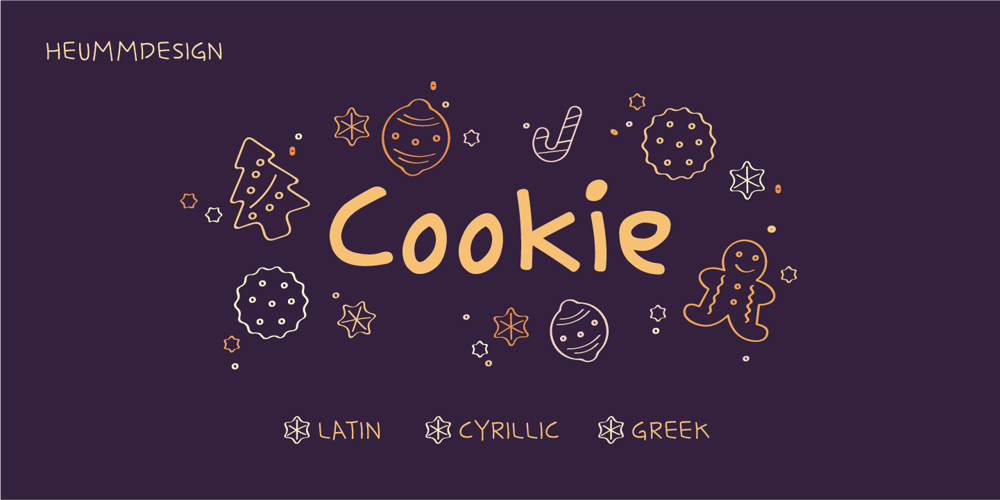
HU Cookie
HU Cookie font
HU Cookie Font Family was designed by Haerin Lee, ByoungHeon Park, Rumi Kim and published by Heummdesign. HU Cookie contains 2 styles and family package options. EnglishHU Cookie is a cute handwritten typeface that can be used to express any lively or active moment.The alphabets are not aligned or evenly written but are crooked like scribble, which gives you funny and informal vibe.There are 2 weights of HU Cookie : light, semi boldGreekΤο HU Cookie είναι μια χαριτωμένη χειρόγραφη γραμματοσειρά που μπορεί να χρησιμοποιηθεί για να εκφράσει οποιαδήποτε ζωντανή ή ενεργή στιγμή.Τα αλφάβητα δεν είναι ευθυγραμμισμένα ή ομοιόμορφα γραμμένα, αλλά είναι στραμμένα σαν σκαρίφημα, κάτι που σας δίνει αστεία και ανεπίσημη ατμόσφαιρα.Υπάρχουν 2 βάρη του HU Cookie: light, semi boldCyrillicHU Cookie – это симпатичный рукописный шрифт, которым можно обозначить любой живой или активный момент.Алфавиты не выровнены и написаны неравномерно, они изогнуты, как каракули, что создает забавную и неформальную атмосферу.HU Cookie имеет 2 толщины: light, semi bold